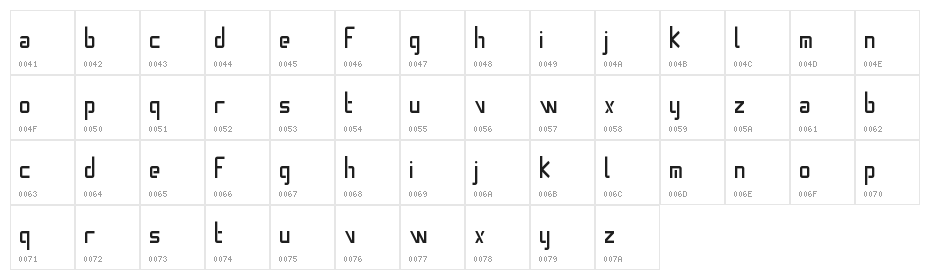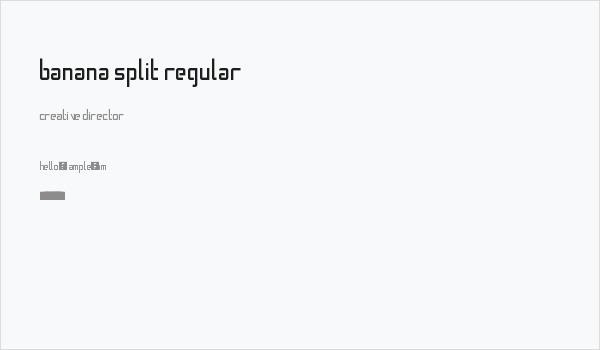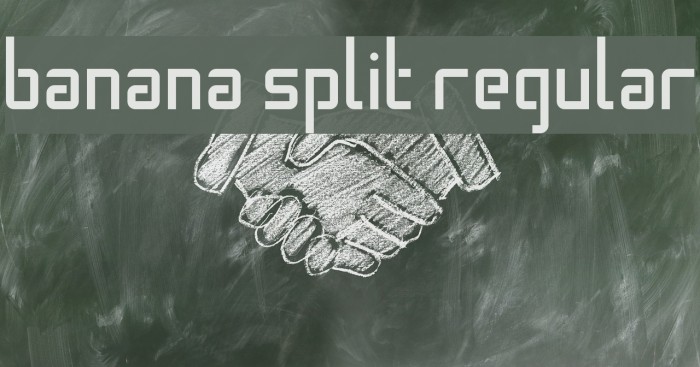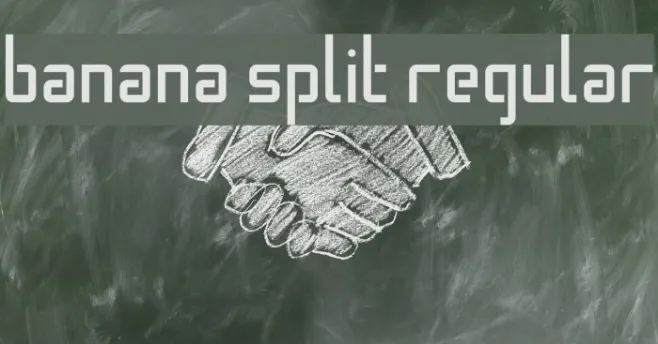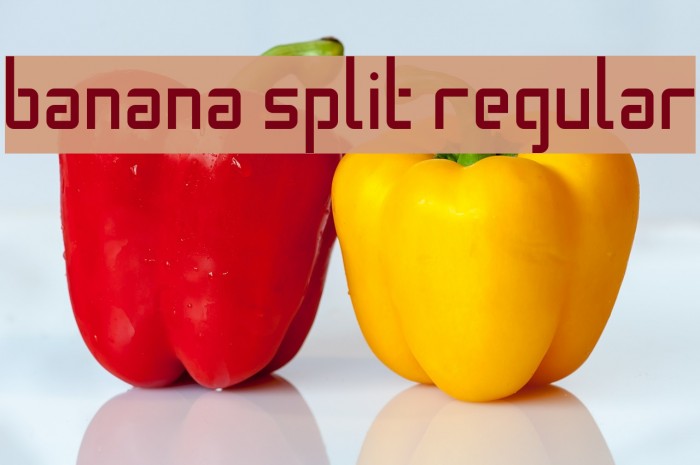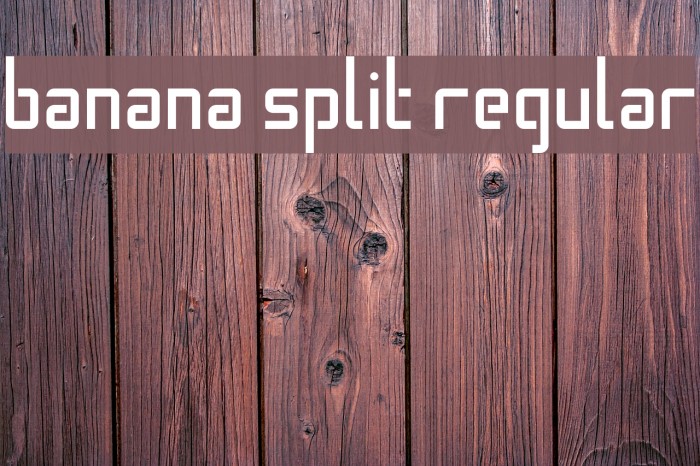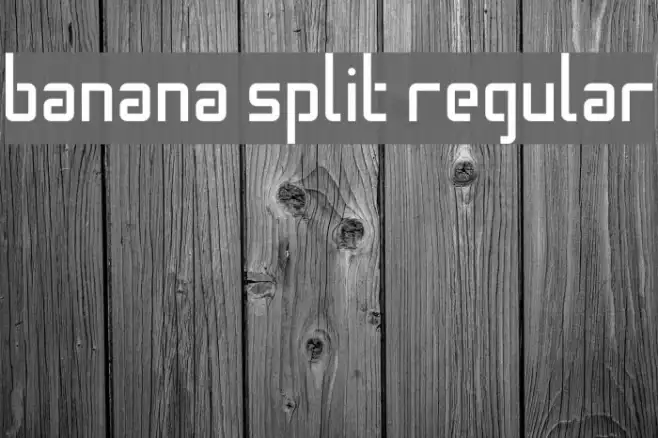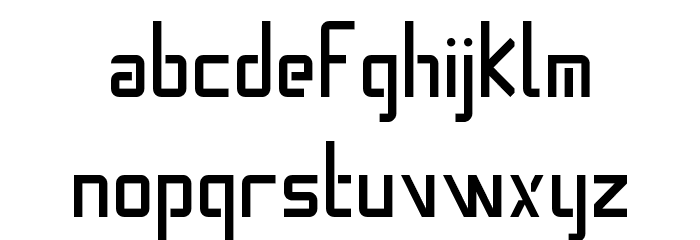
Banana Split Regular Font
Banana Split Regular Description
This font features a modern, geometric design with clean lines and a structured appearance. Each character is crafted with precision, exhibiting a uniform stroke width that contributes to its contemporary aesthetic. The font's angular shapes and sharp corners give it a distinctive, futuristic look, making it stand out in any design. The consistent height and alignment of the characters ensure readability while maintaining a unique style. Its minimalistic approach is balanced with a touch of elegance, making it versatile for various applications.
| Use Case | Headlines, Logos, Digital Interfaces |
| Proposed Projects | Ideal for tech-related branding, modern posters, digital interfaces, and innovative product packaging. |